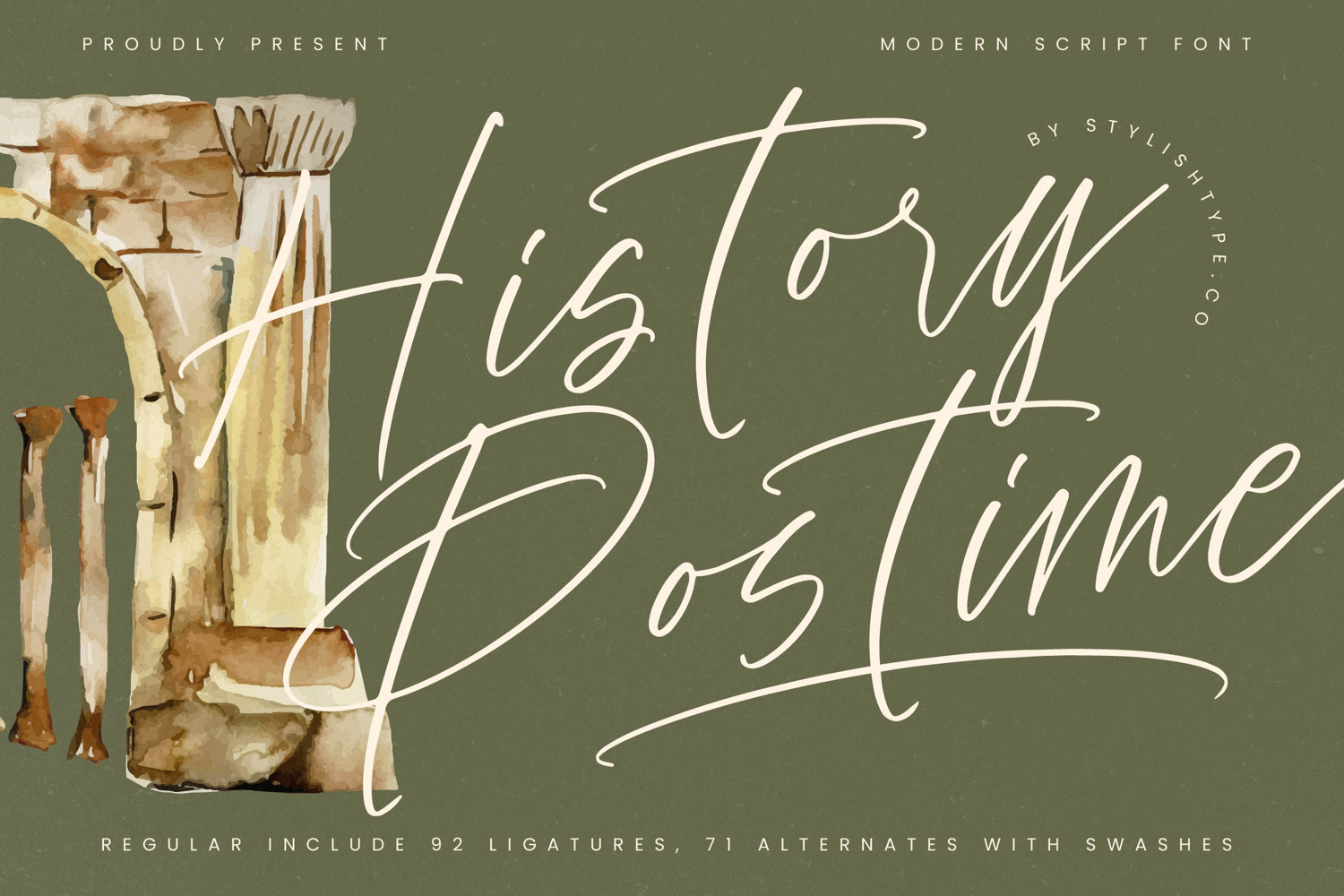
History Postime Modern Script Font
History Postime - Modern Script Font. This exquisite typeface fuses timeless historical elegance with sharp, modern sensibilities, resulting in a script that demands attention. Characterized by its delicate, high-contrast strokes and natural, flowing connectivity, this font simulates genuine brushwork while maintaining flawless digital precision. It is the perfect choice for projects requiring a touch of personalized refinement and immediate visual impact.
Ligature Alternates & Swashes